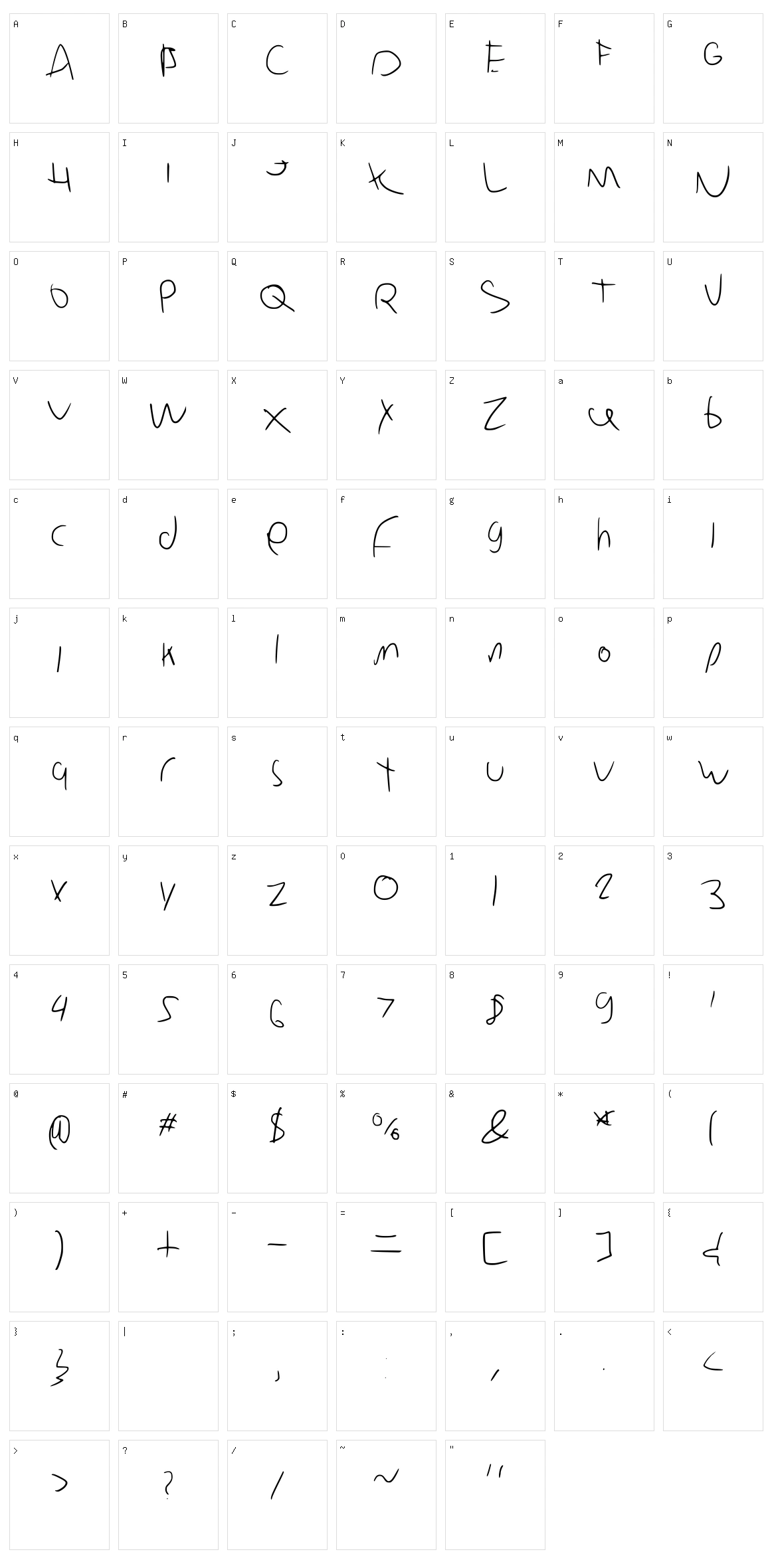
The free font Diode Font is carefully designed by CosmicStunky, showcasing a thoughtful balance of creativity and usability and falls under the Script font style. When you download the ZIP file, it contains only 12.56 KB of font files, making it lightweight and quick to download. Please review the license details below to understand permitted usage and distribution rights. If license information is not available, we recommend using this font for personal projects only or contacting the author directly for commercial usage permissions.